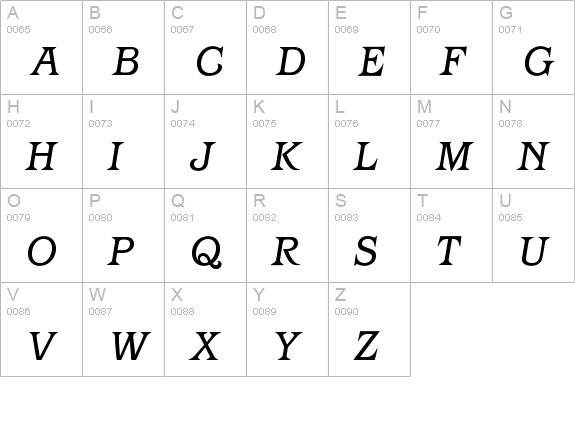
Barcelona* Book Italic is a comfortable, highly readable, italic variant in the Barcelona* typeface family \xE2\x80\x94 well suited to long-form body text, articles, and editorial content.
Barcelona Book Italic font exudes elegance and sophistication with its slender and stylish design. This versatile typeface is perfect for adding a touch of modernity to your projects, whether it's for branding, editorial design, or web content. The italicized form of Barcelona Book brings a sense of dynamism and movement to your text, making it stand out in a subtle yet impactful way. And the best part? You can freely download Barcelona Book Italic font at FontsMarket.com, making it easily accessible for all your creative endeavors. Embrace the sleek curves and graceful strokes of Barcelona Book Italic to elevate your design work to a whole new level of sophistication and style.